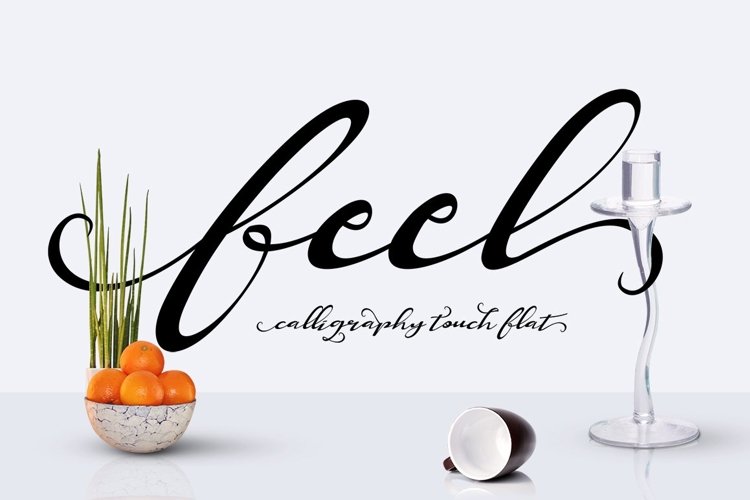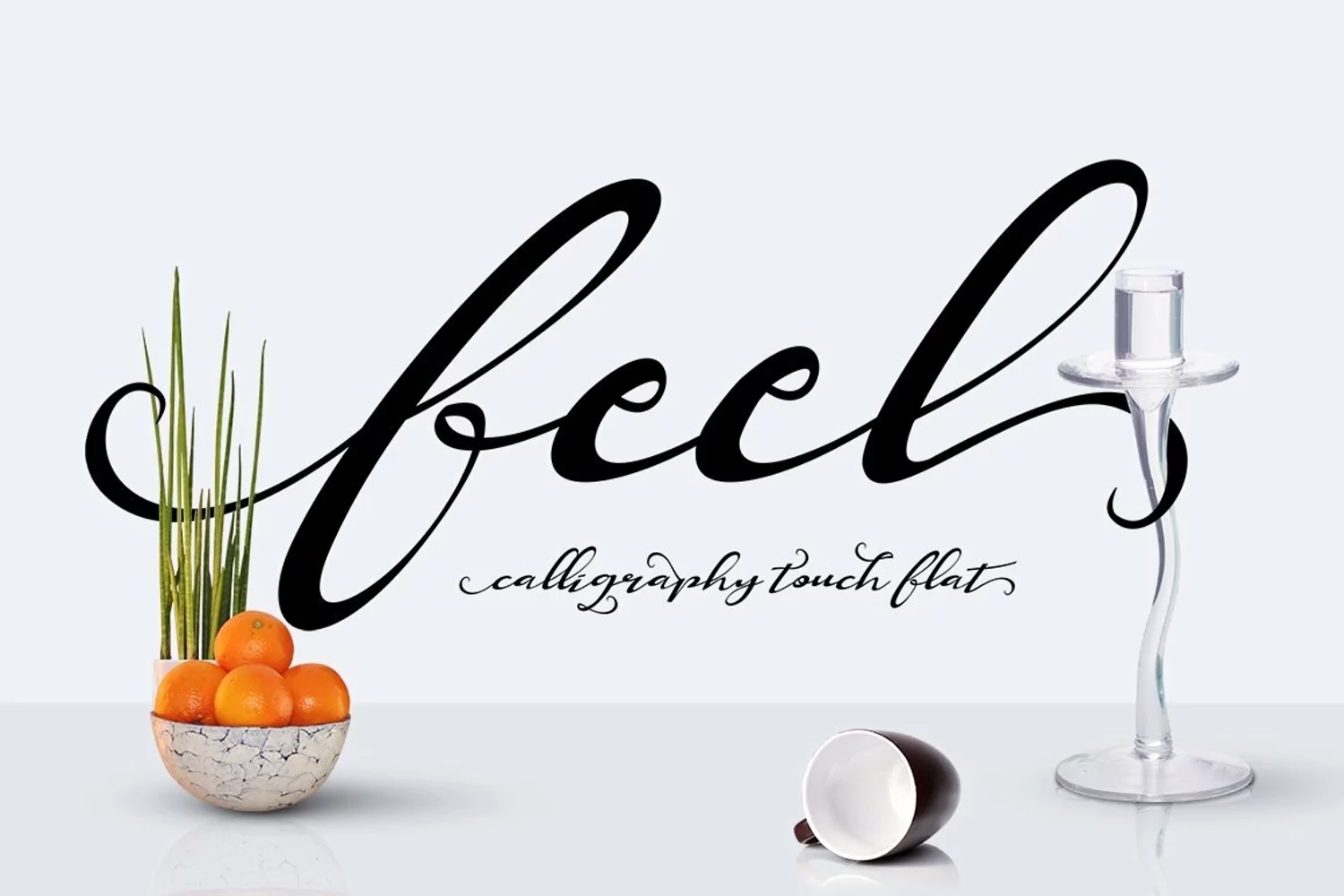
Feel Script! calligraphy touch flat amazingly fun yet elegant, which allows you to create beautiful handmade typography in a heartbeat. Feel Script is Perfectly to make your text stand out so perfect for logos, quotes printed, invitations, business cards, product packaging, headers and anything else your imagination feel.